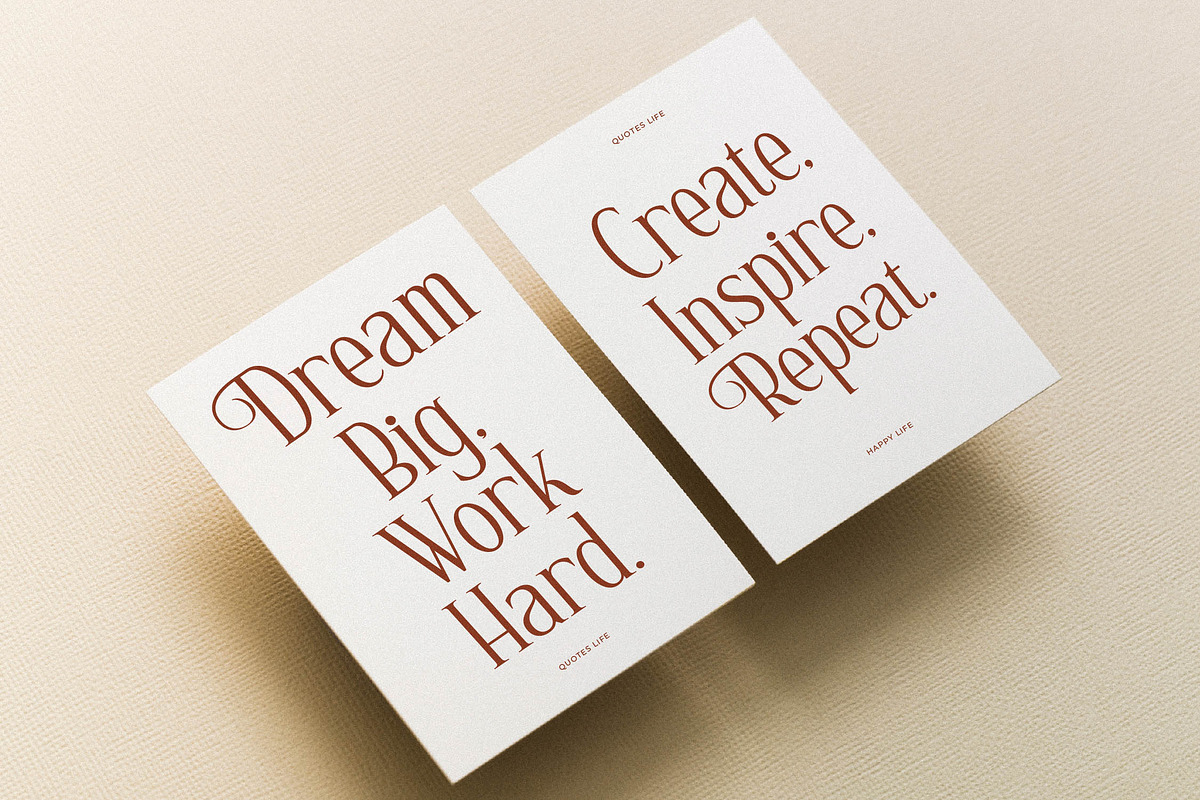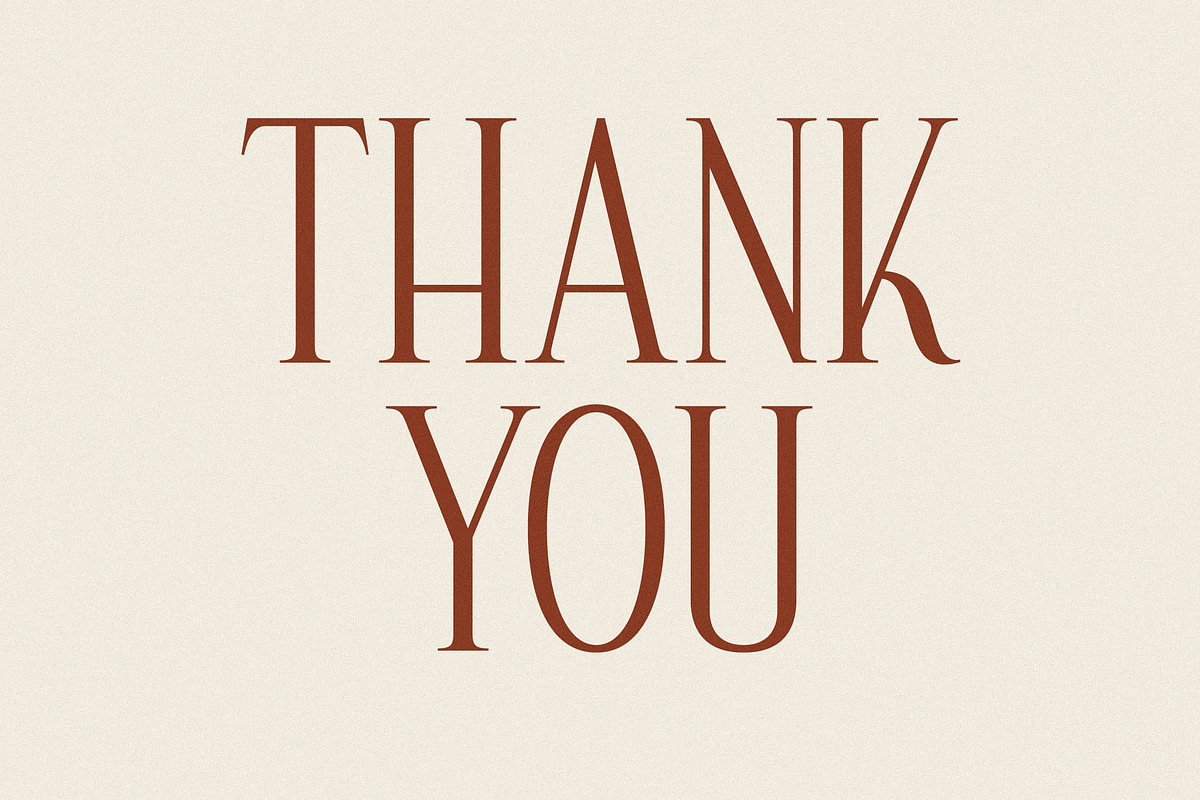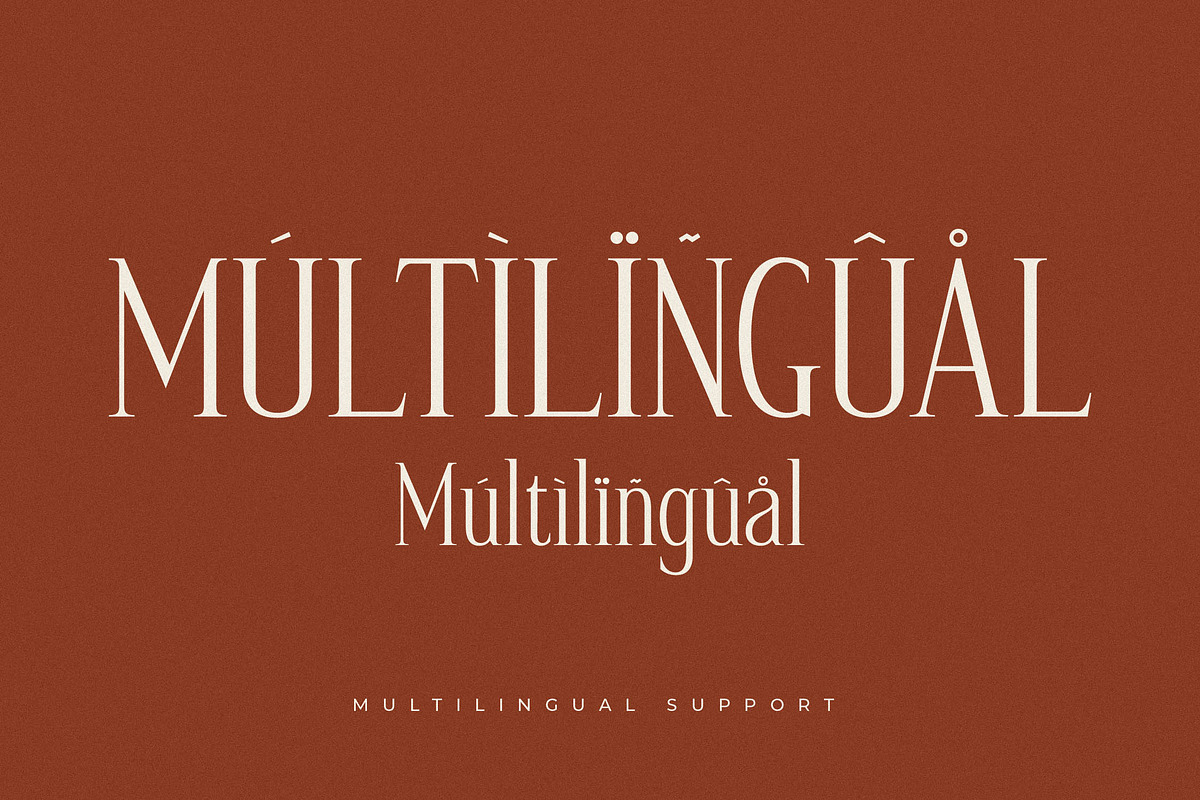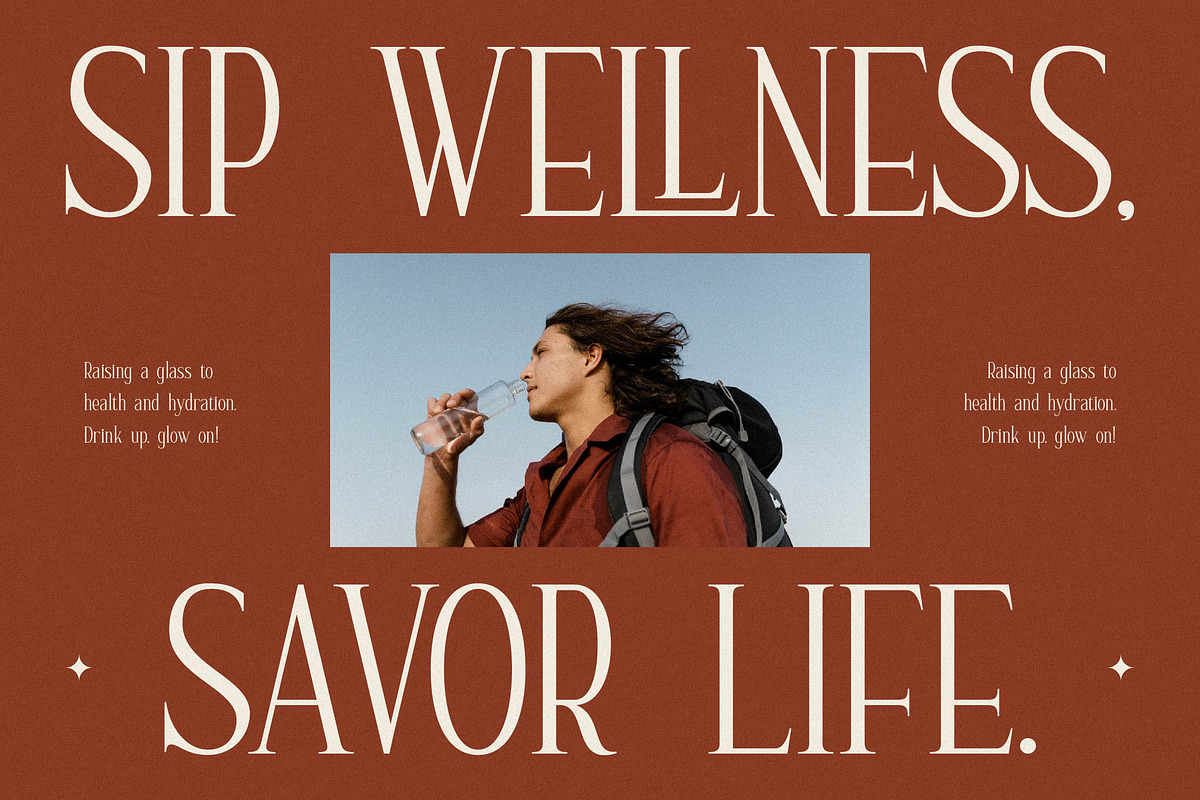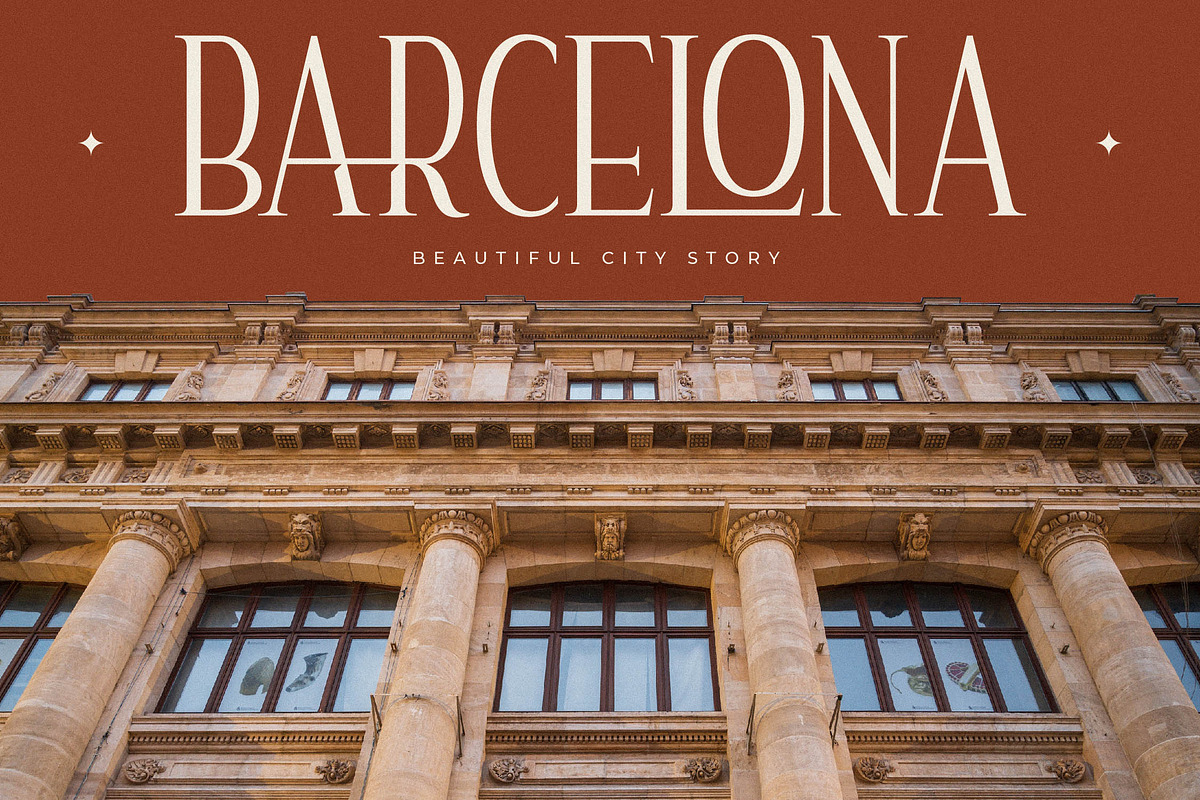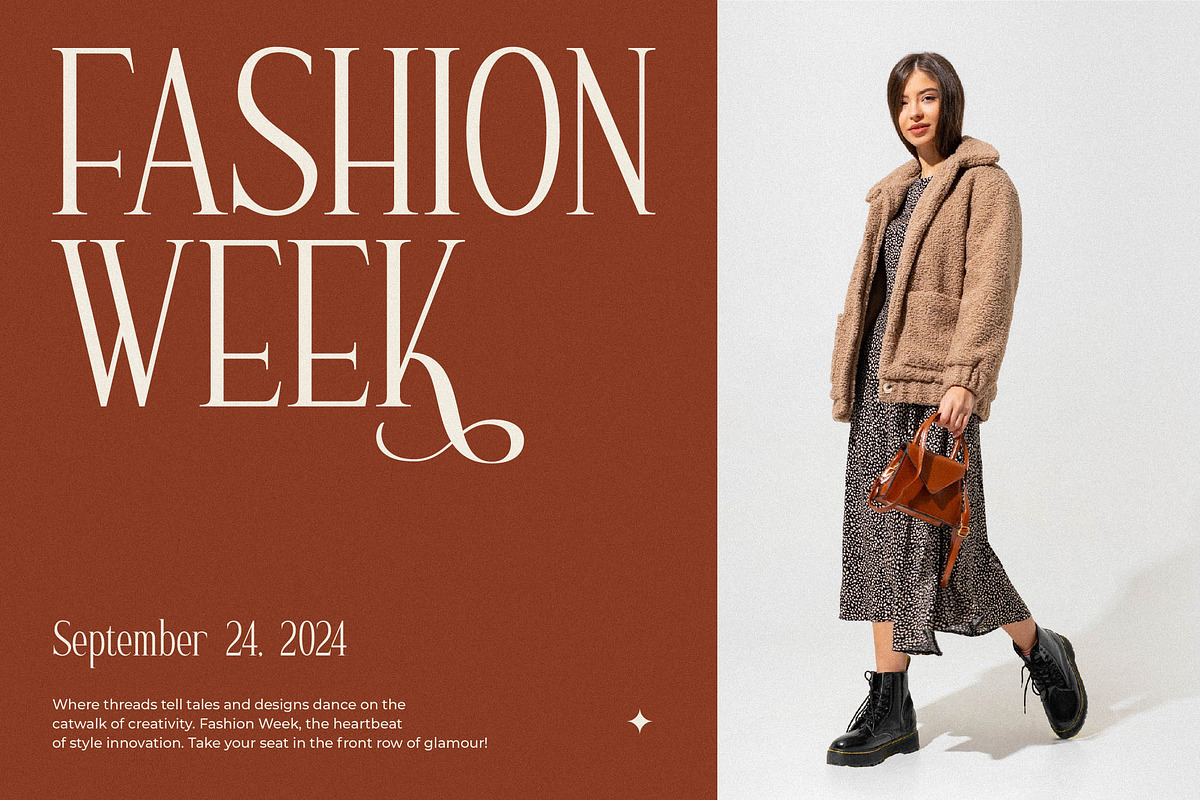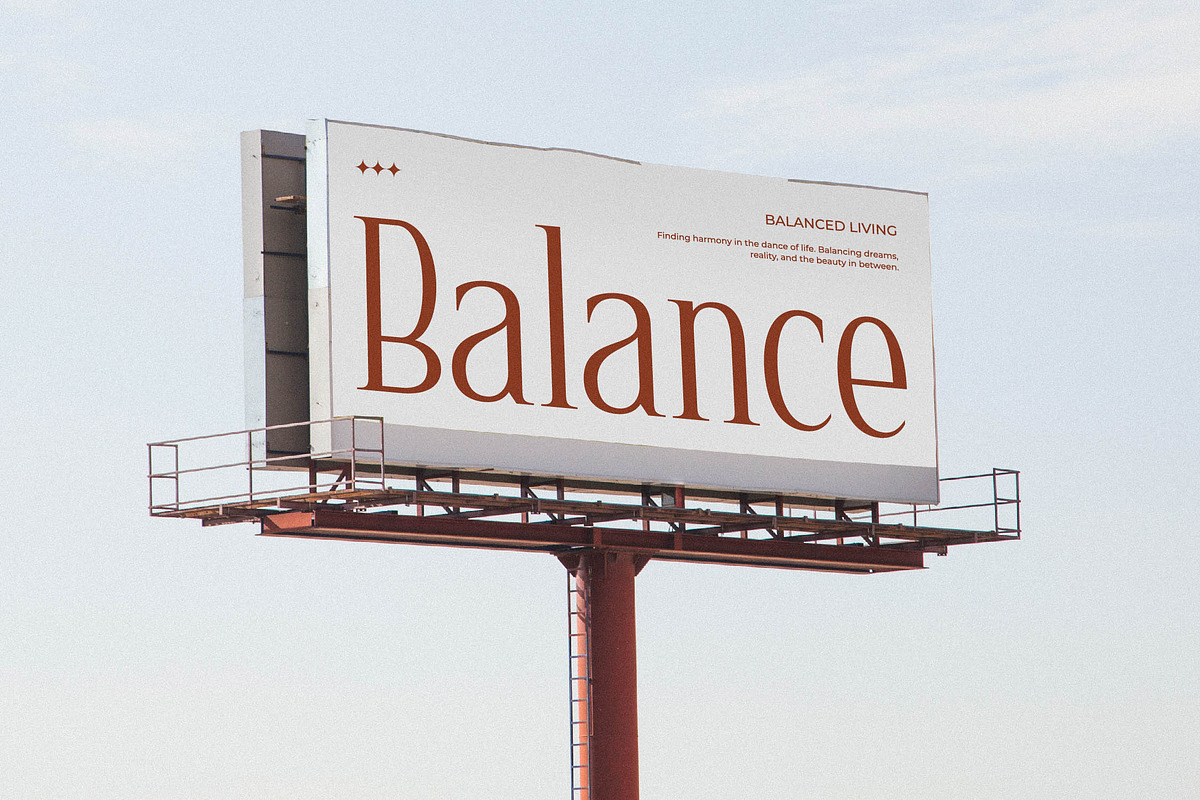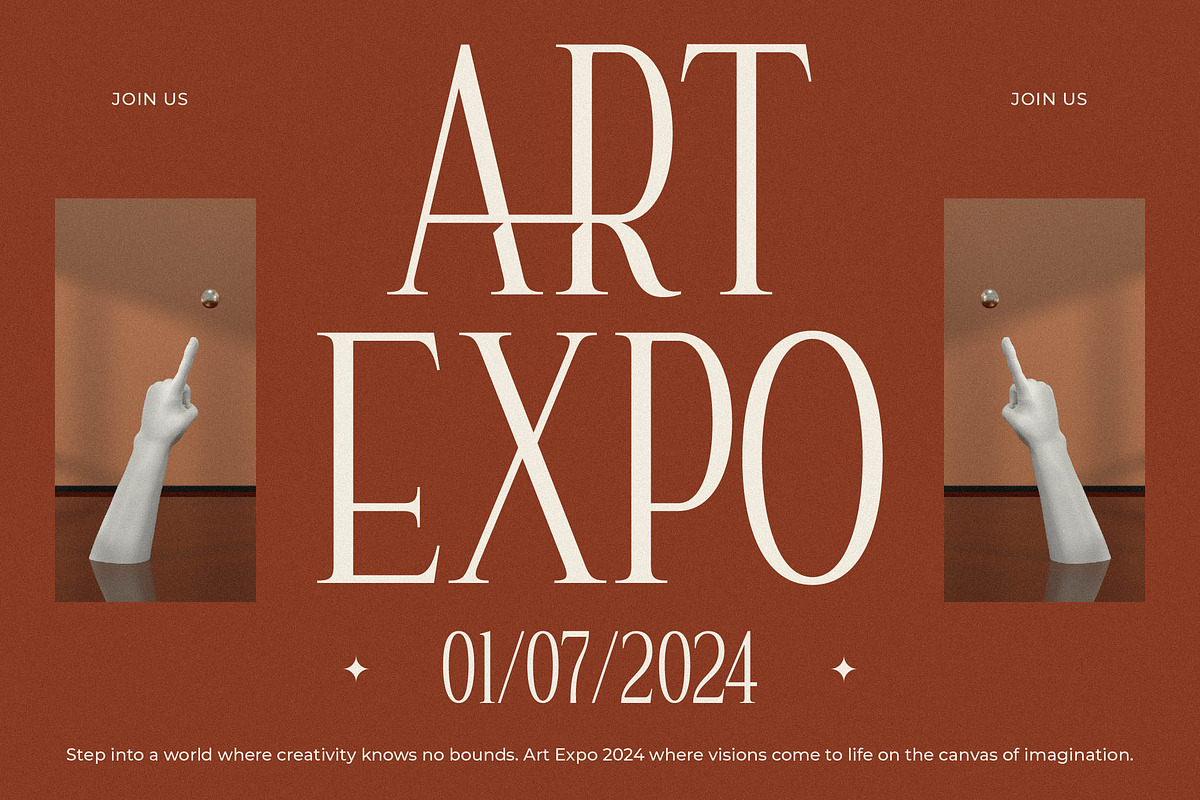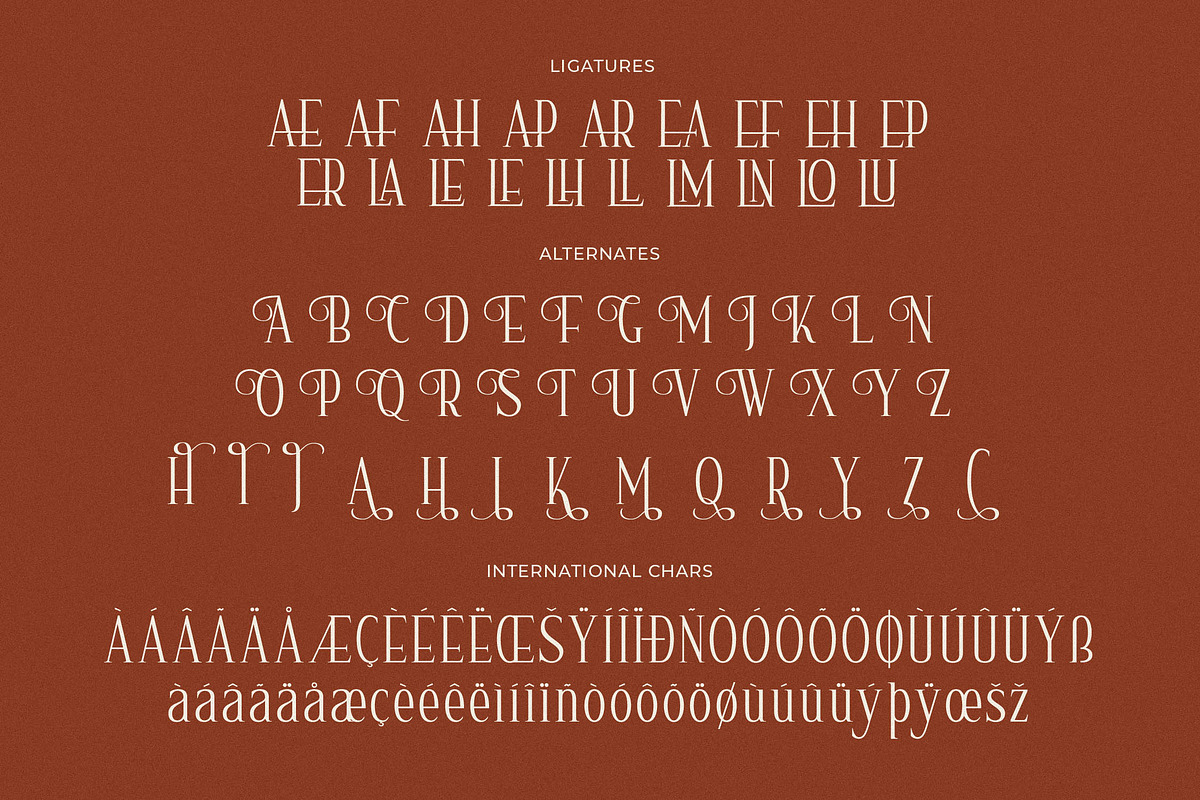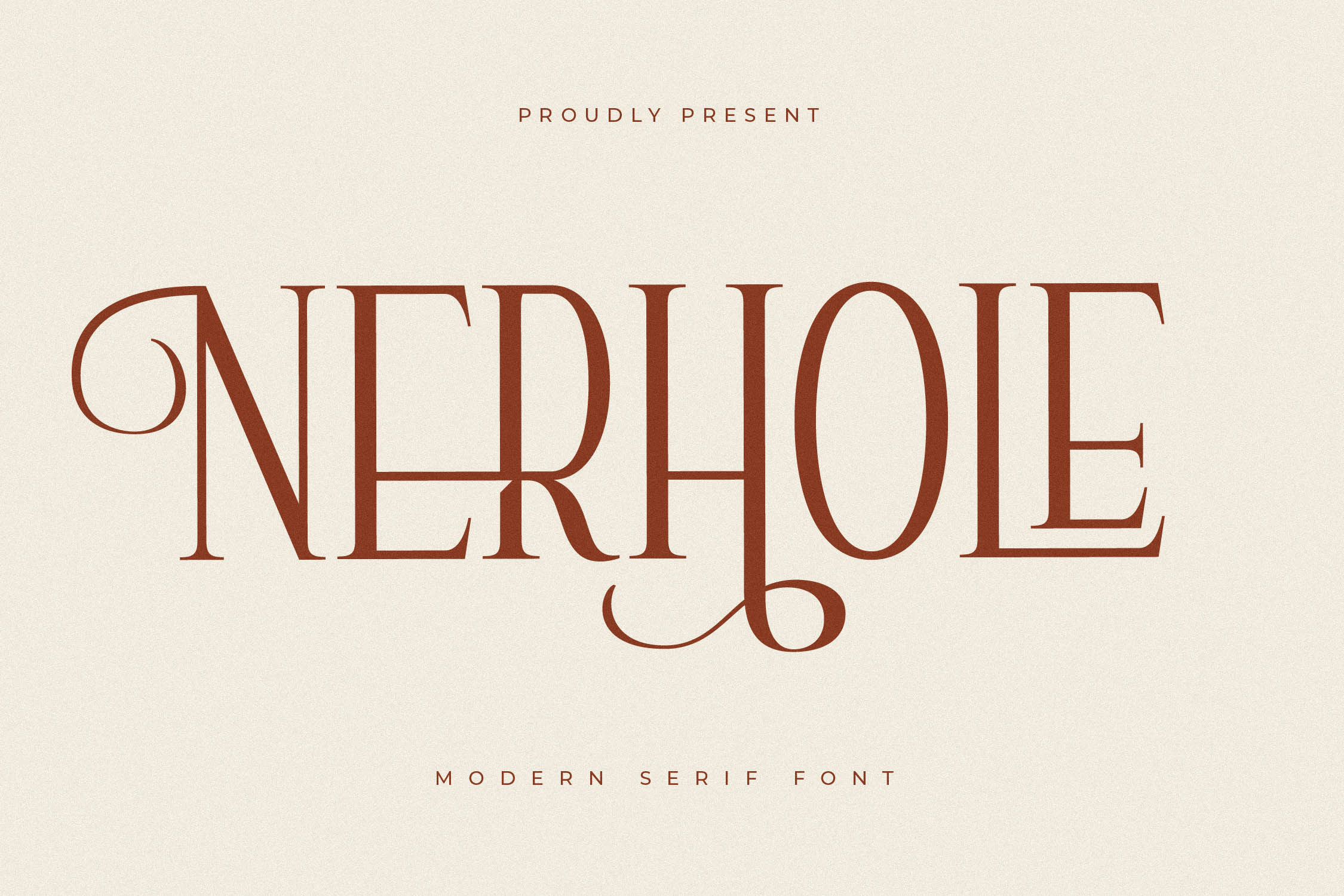
Nerhole Modern Serif Font
Nerhole – Modern Serif Font , from Letterena, is a Luxury serif font, suitable for any projects such as: logos, branding projects, homeware designs, product packaging, mugs, quotes, posters, shopping bags, t-shirts, book covers, name card, invitation cards, greeting cards, label, photography, watermark, special events, and all your other luxury and beautiful projects that need a Luxury serif taste.